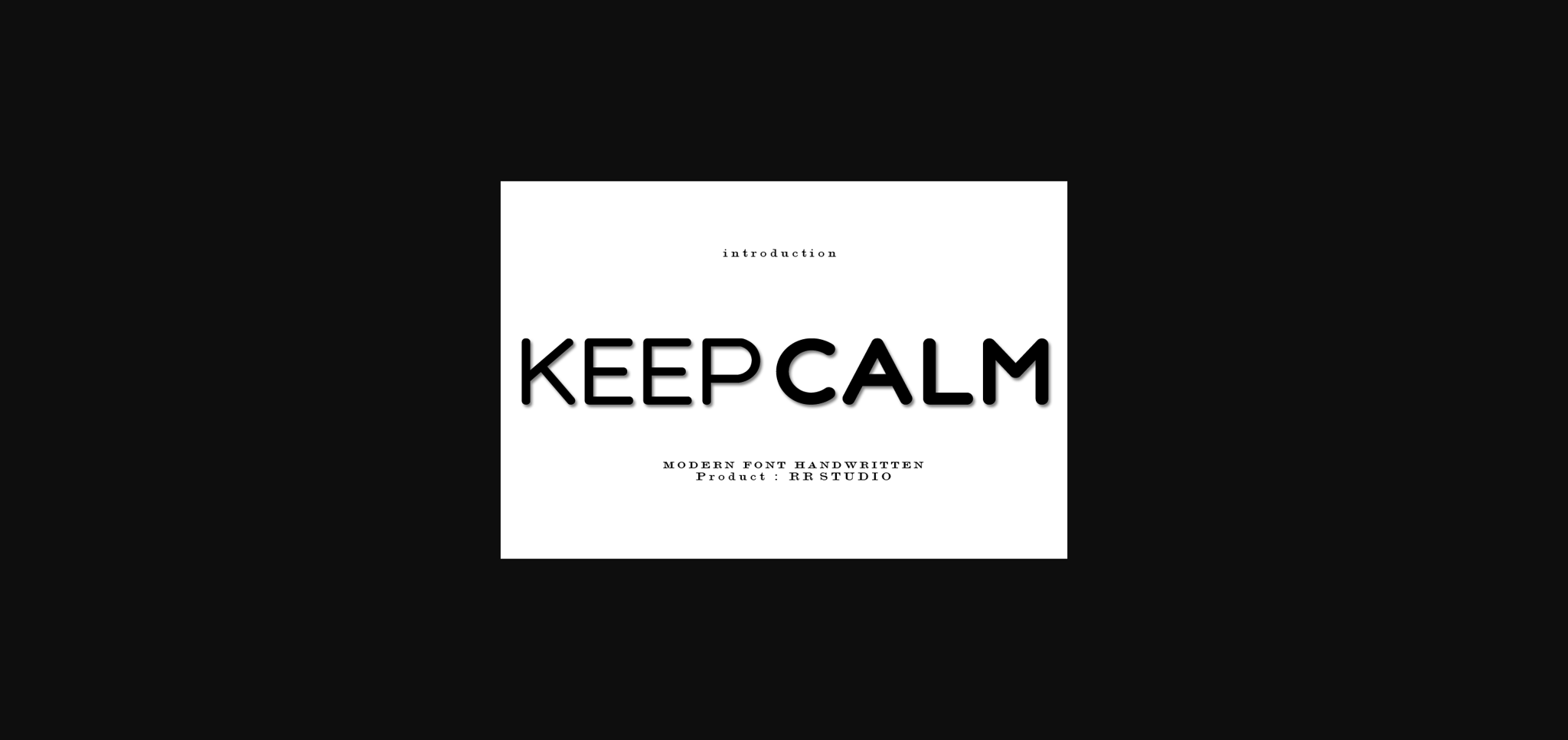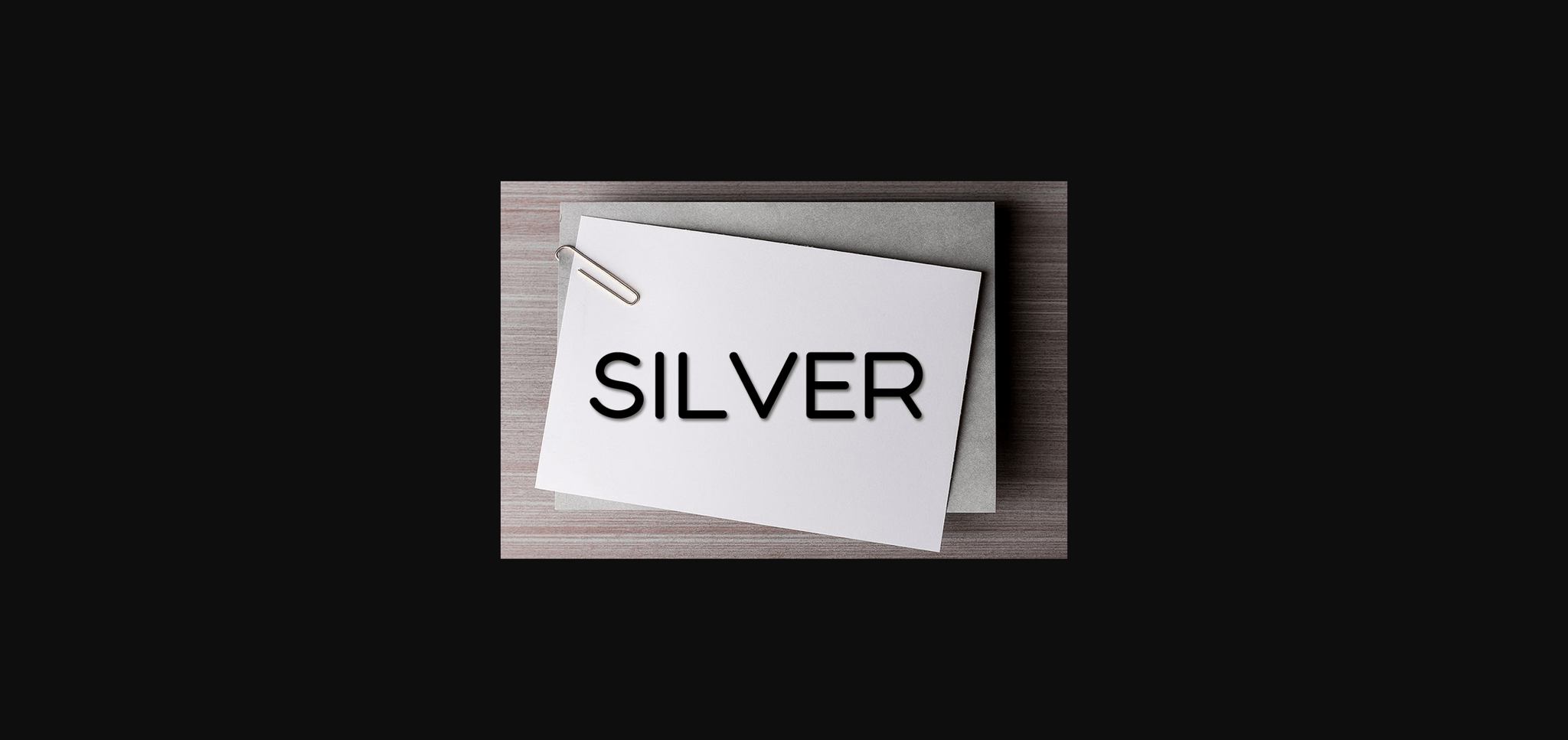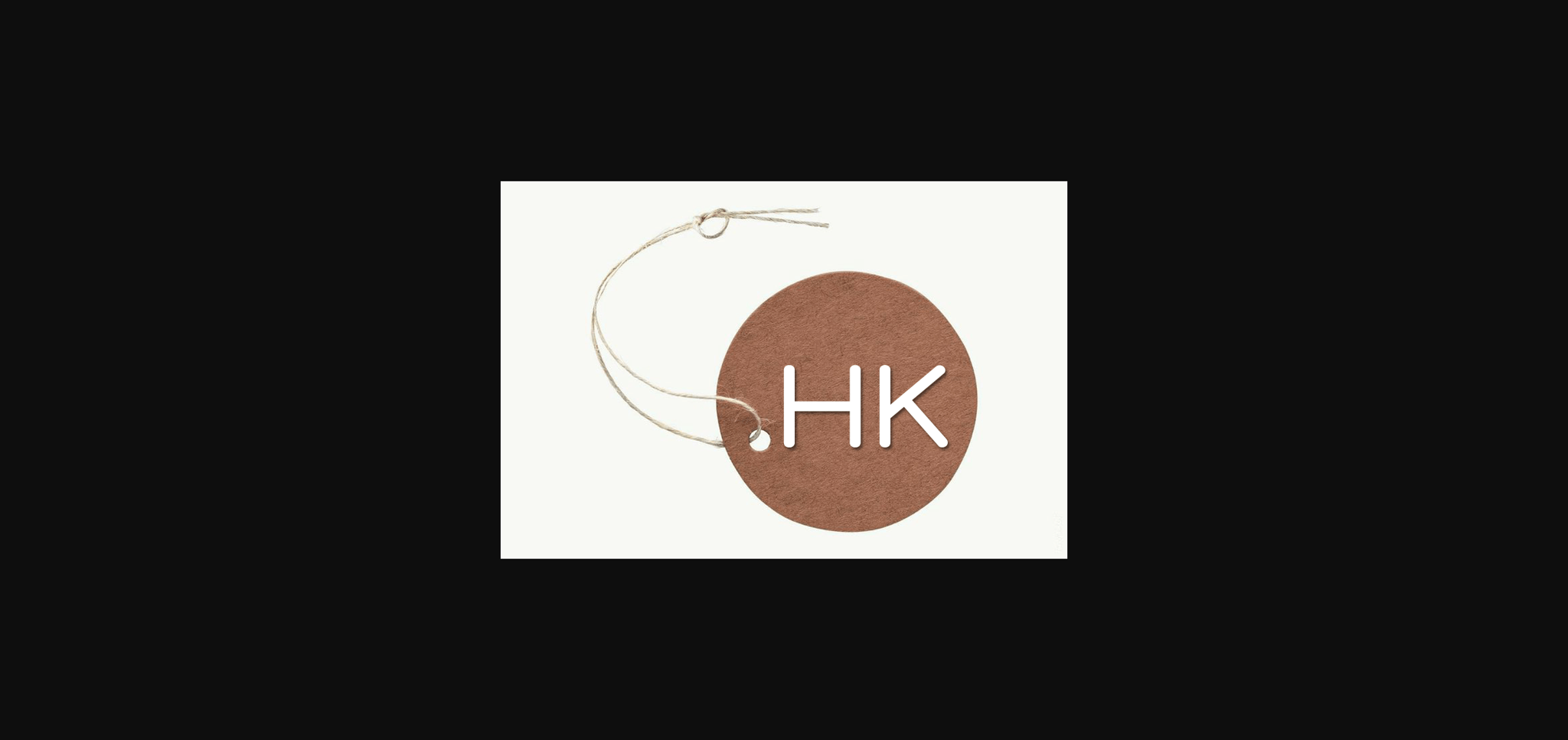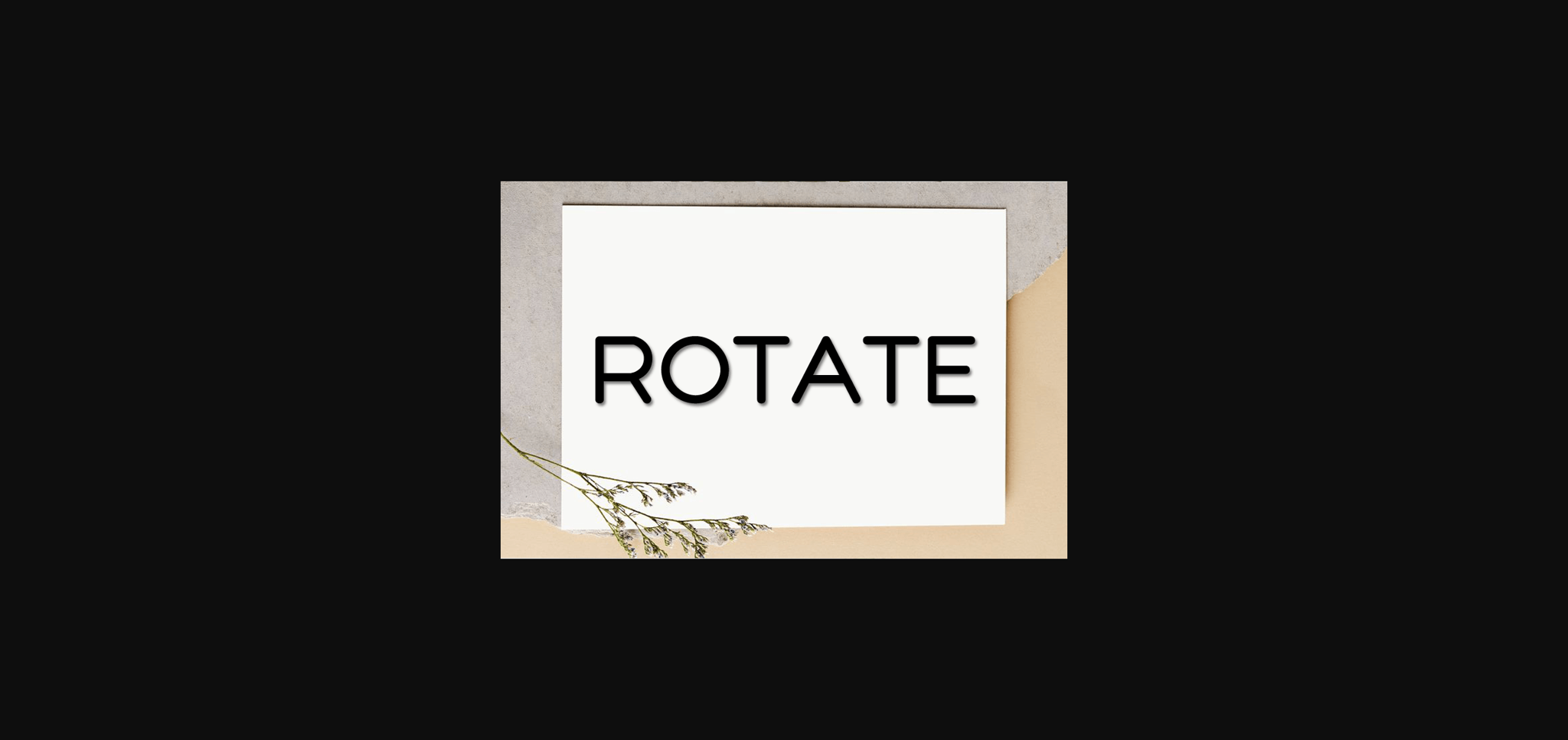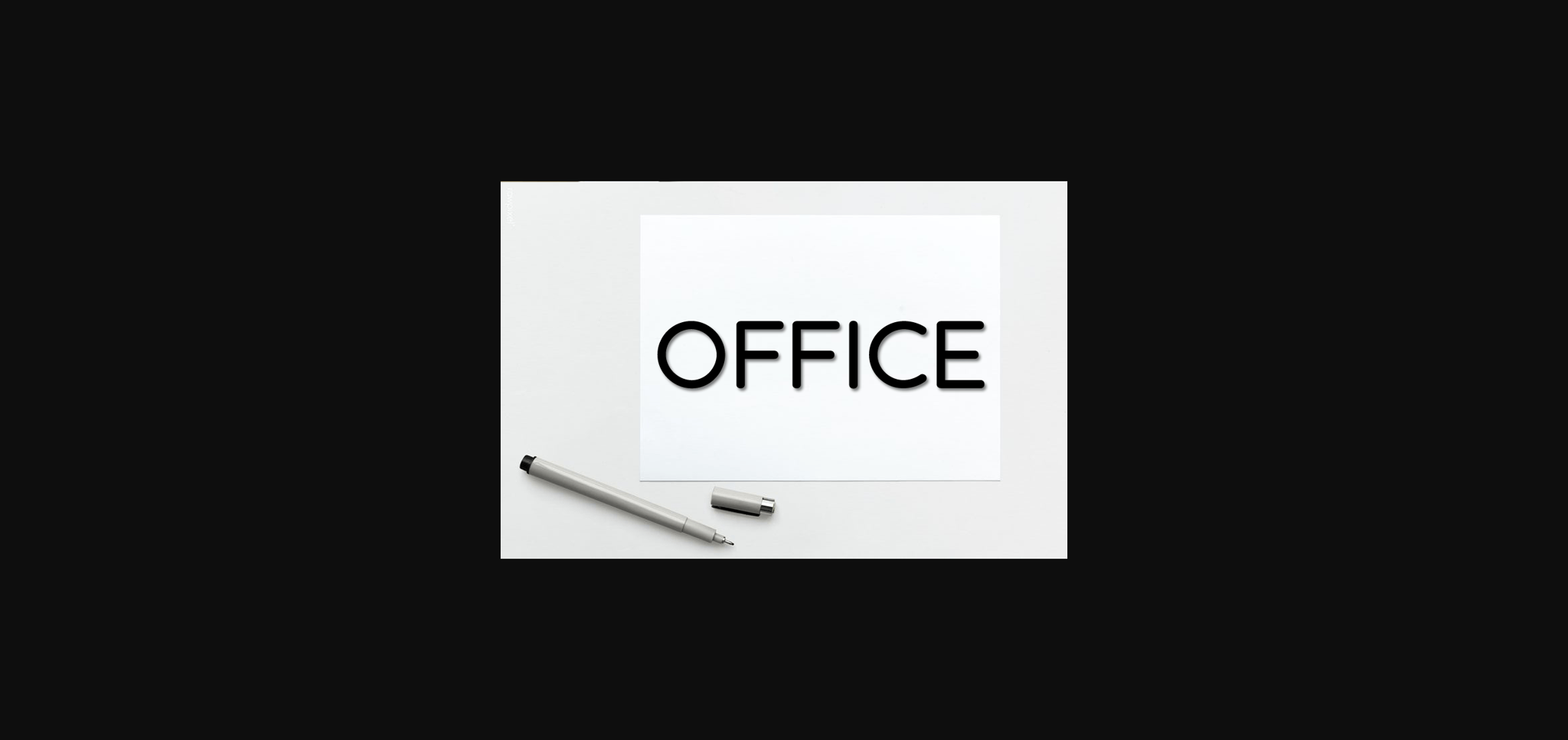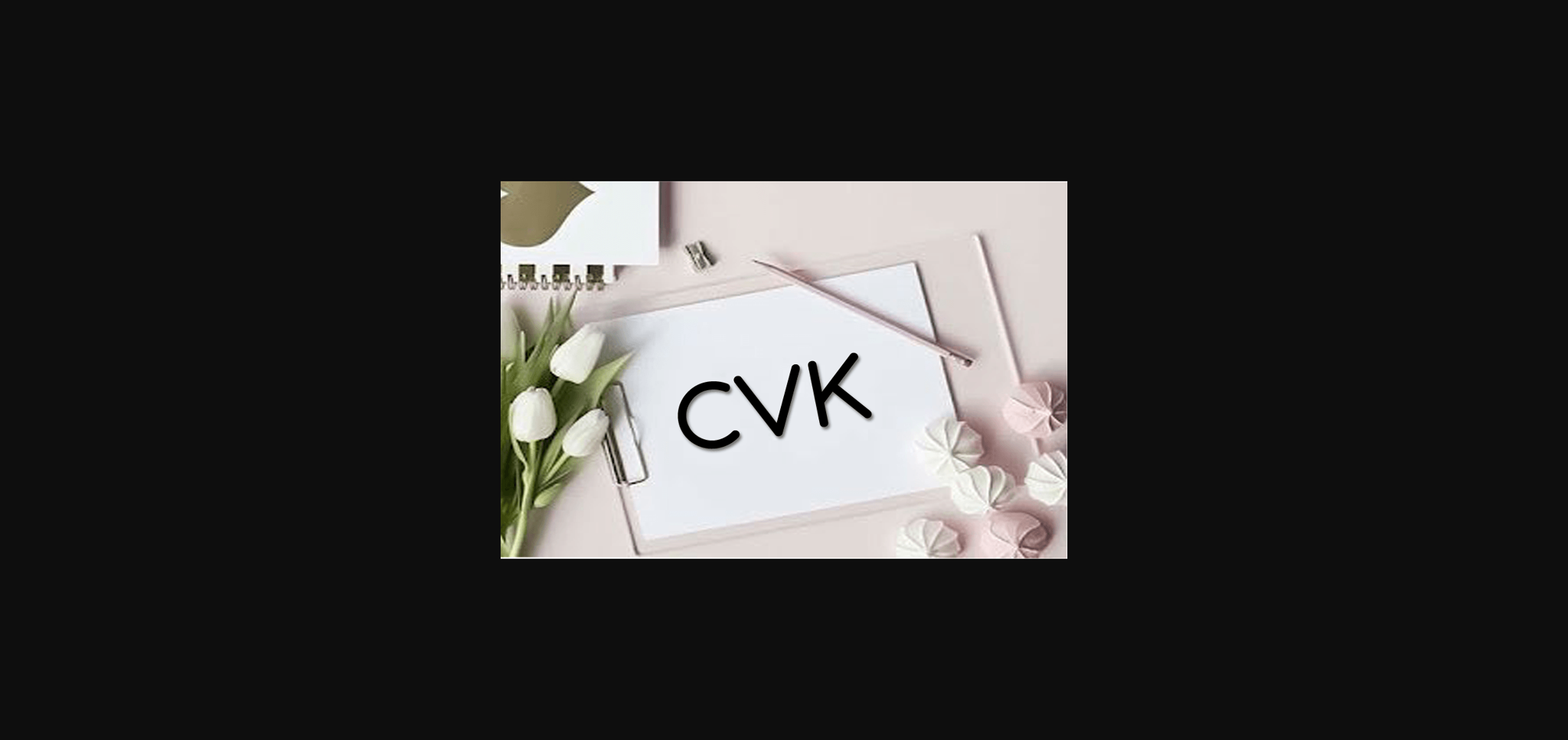
Keep Calm Font
About Keep Calm Font
Keep Calm is a neat and casual handwritten sans serif font. Its sleek look makes it suitable for a wide spectrum of applications.